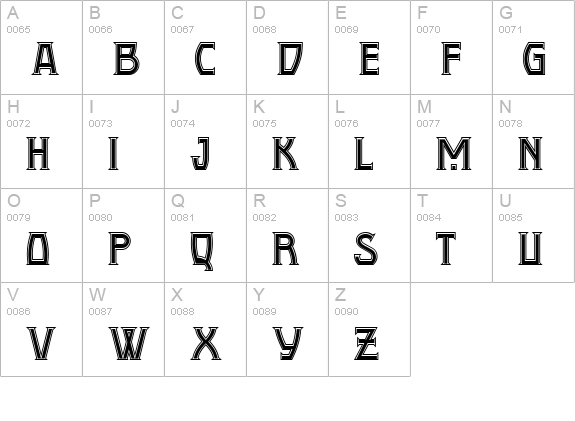
Conquistadorman NF font is a stunning display typeface that exudes elegance and sophistication. With its intricate details and historic charm, this font is perfect for adding a touch of grandeur to your design projects. The ornate serifs and bold lines of Conquistadorman NF make it stand out and command attention. What makes Conquistadorman NF even more impressive is that it is completely free to download at FontsMarket.com. This means you can add this exceptional font to your collection without any cost, making it a valuable asset for any designer looking to elevate their work. Don't miss out on the opportunity to enhance your projects with the timeless beauty of Conquistadorman NF font - download it for free today!